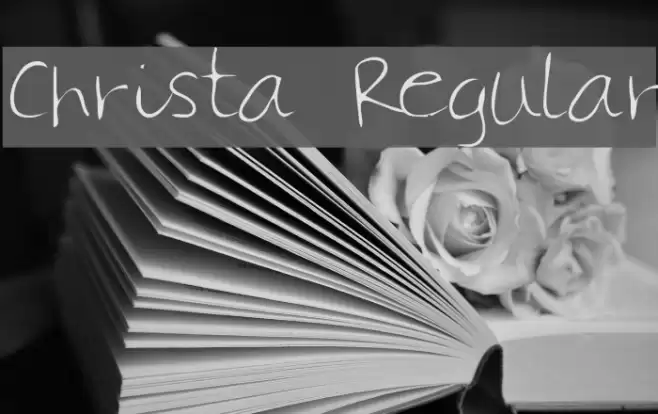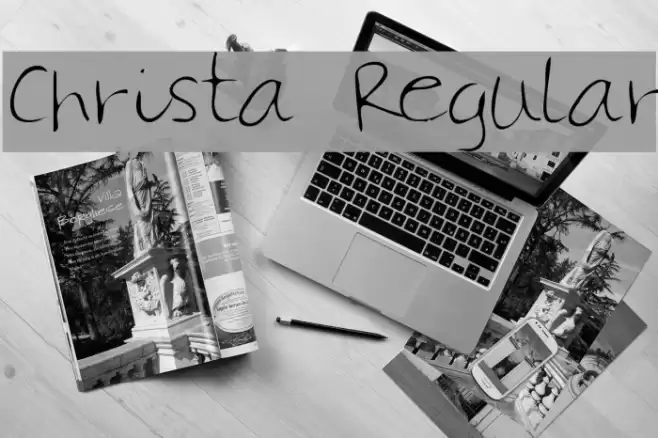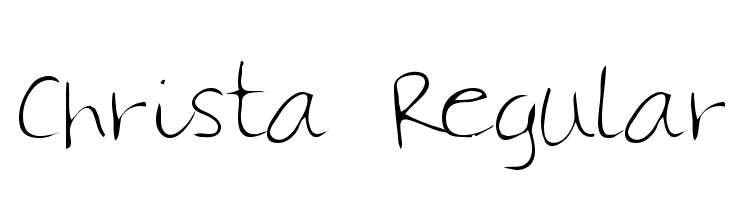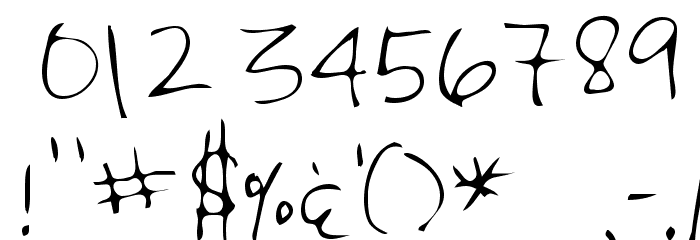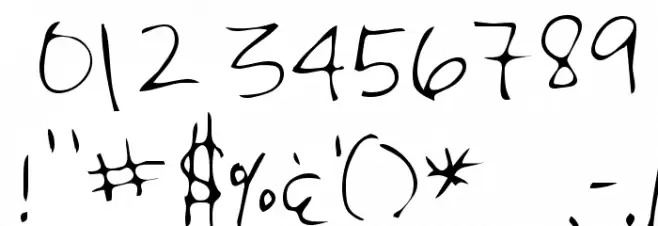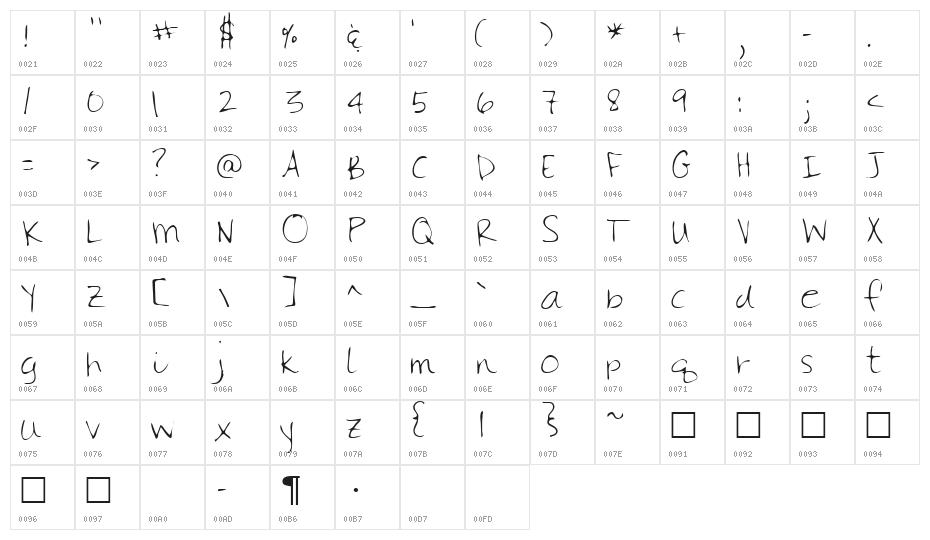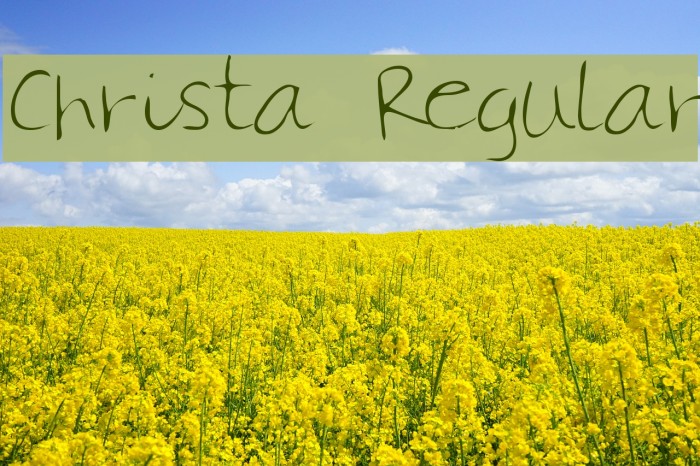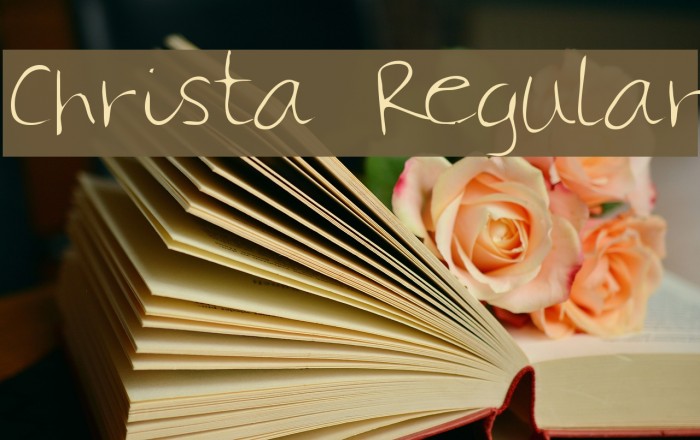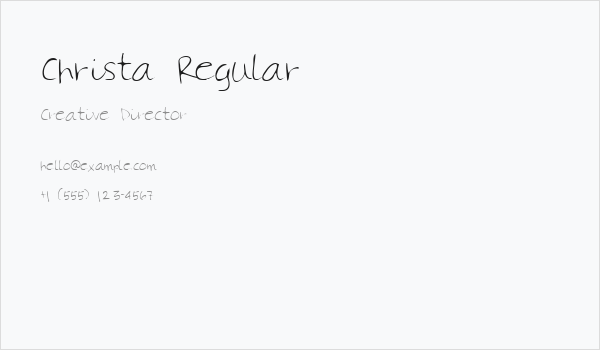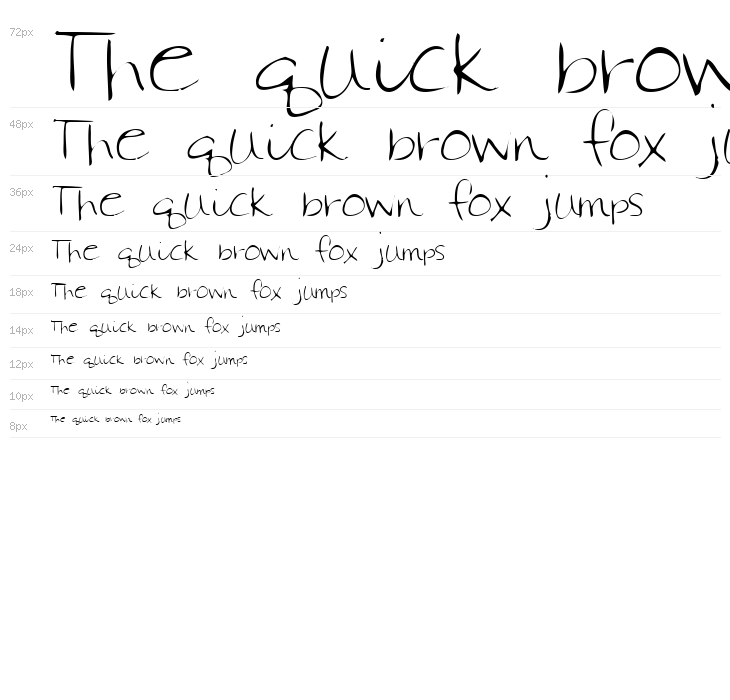
Christa Regular Font
Christa Regular Description
This font features a playful and casual handwritten style, characterized by its irregular strokes and organic flow. The letters have a dynamic and lively appearance, with varying stroke widths that add a sense of movement and personality. The uppercase letters are slightly taller and more pronounced, while the lowercase letters maintain a consistent baseline, providing a harmonious balance. Numbers and special characters follow the same whimsical style, making the font versatile for creative projects. The overall design is approachable and friendly, suitable for conveying a relaxed and informal tone.
- Overall Style: Casual